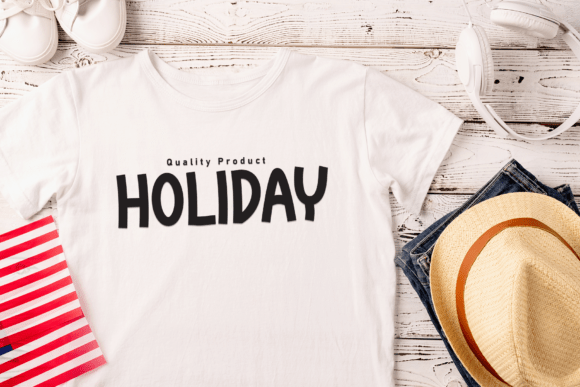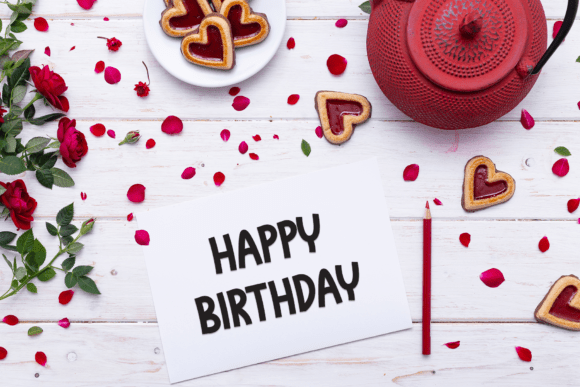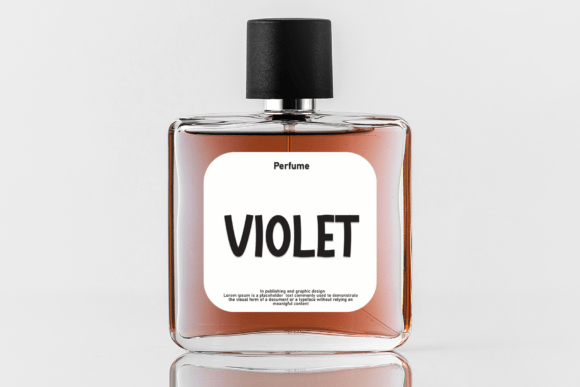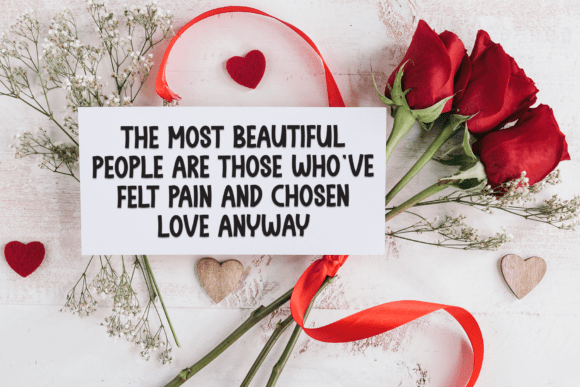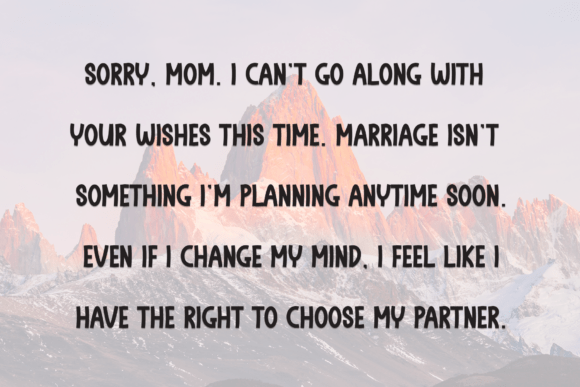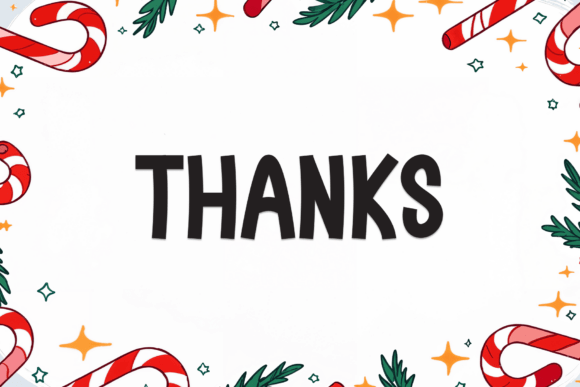
Introduction to Christmas Frameline Font
Christmas Frameline is a festive, handmade font full of playful holiday cheer.
Bold, chunky, and whimsical, itโs designed to bring warmth and joy to all your seasonal creations The hand-crafted style gives it a cozy, nostalgic charm while remaining super legible.
Key Features of Christmas Frameline Font
Why Choose Christmas Frameline Font?